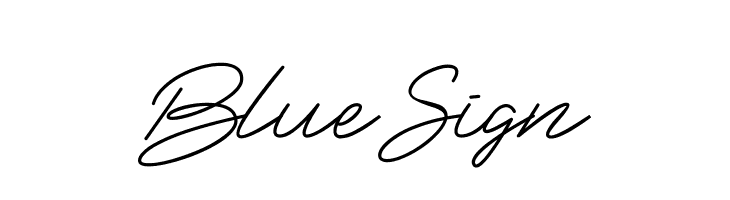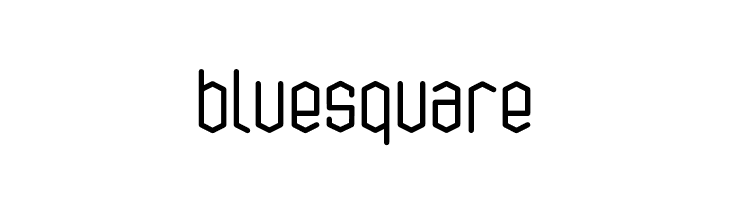
A bold, retro-inspired font with geometric shapes and strong visual impact.
A bold slab serif font with strong, block-like serifs and a robust appearance.
A hand-drawn, blueprint-inspired font with sketch-like outlines and shading.
A casual, handwritten font with a lively and approachable style.
A geometric, blueprint-inspired font with overlapping linear elements.
A flowing, cursive script font with elegant, connected strokes.
A graceful script font with fluid, cursive strokes and elegant loops.
A modern, geometric font with clean lines and circular elements.